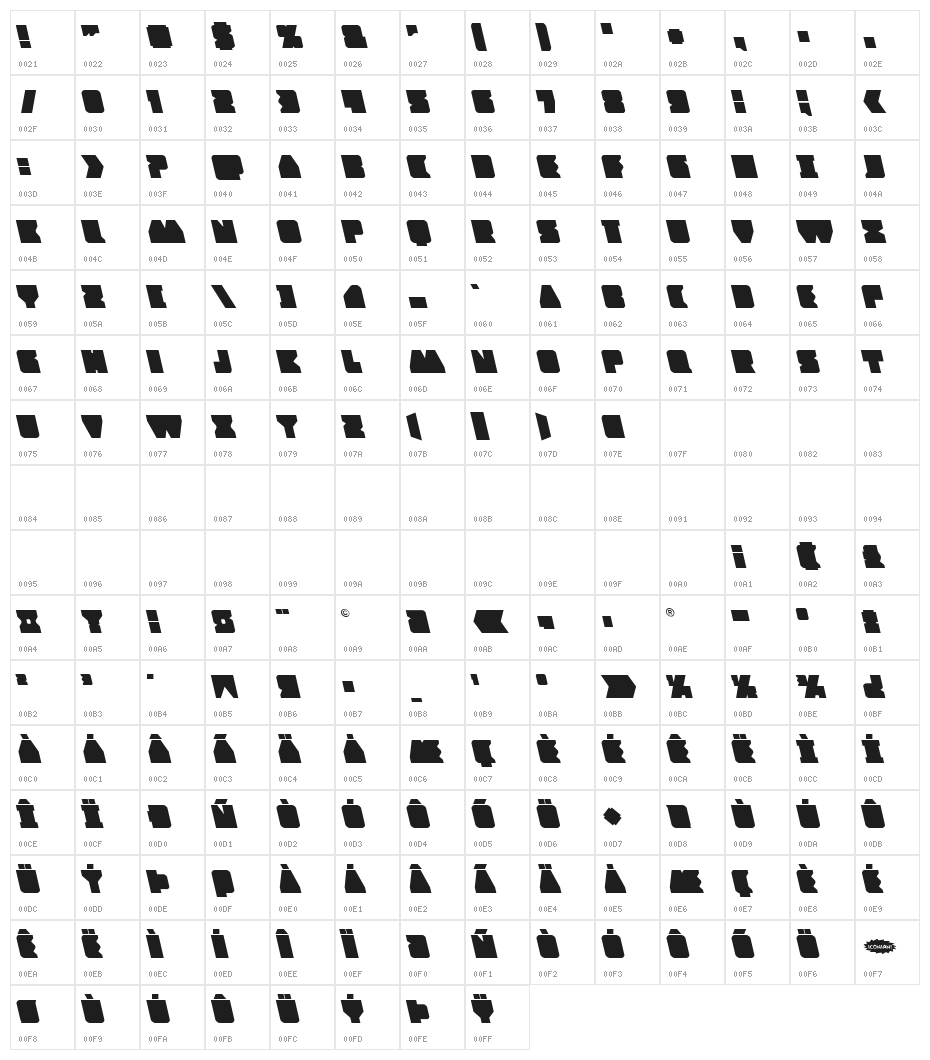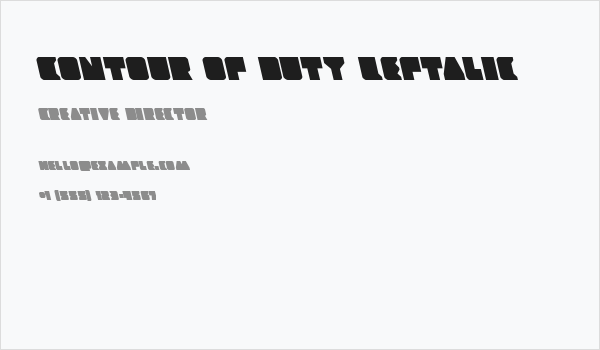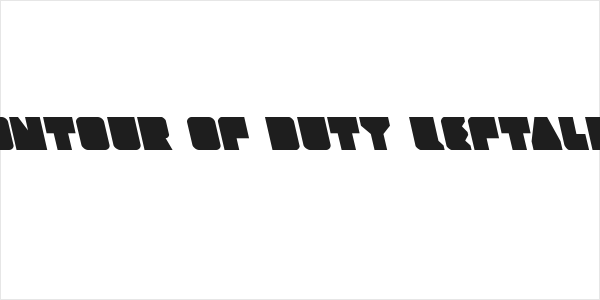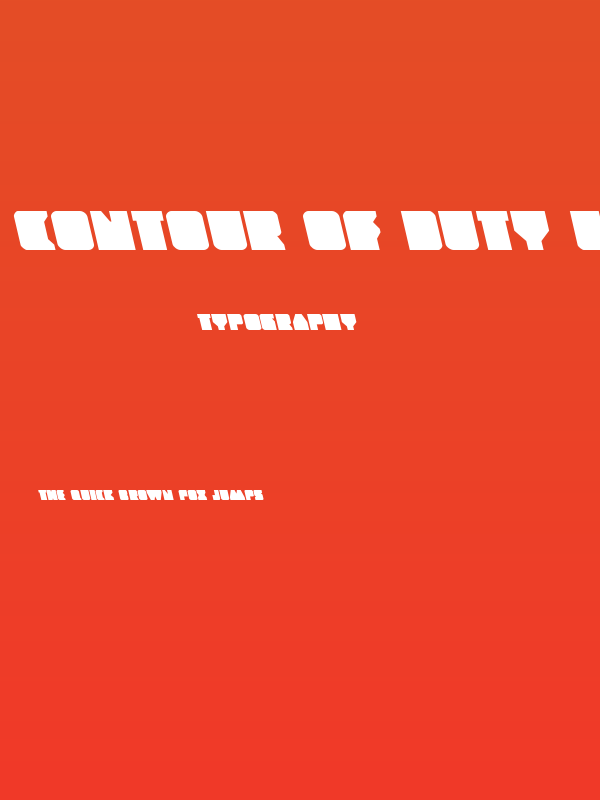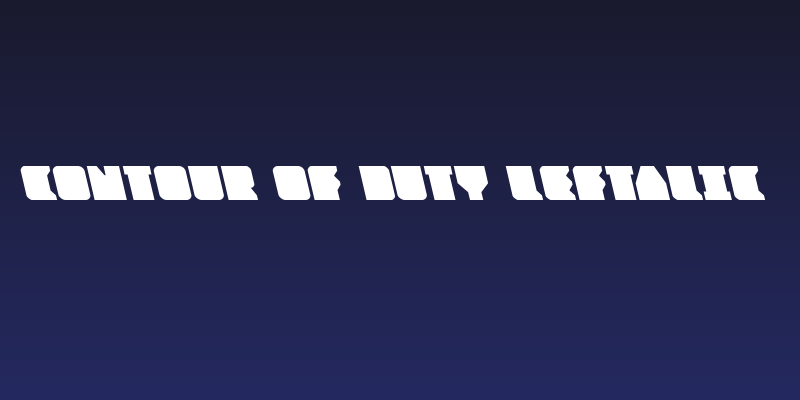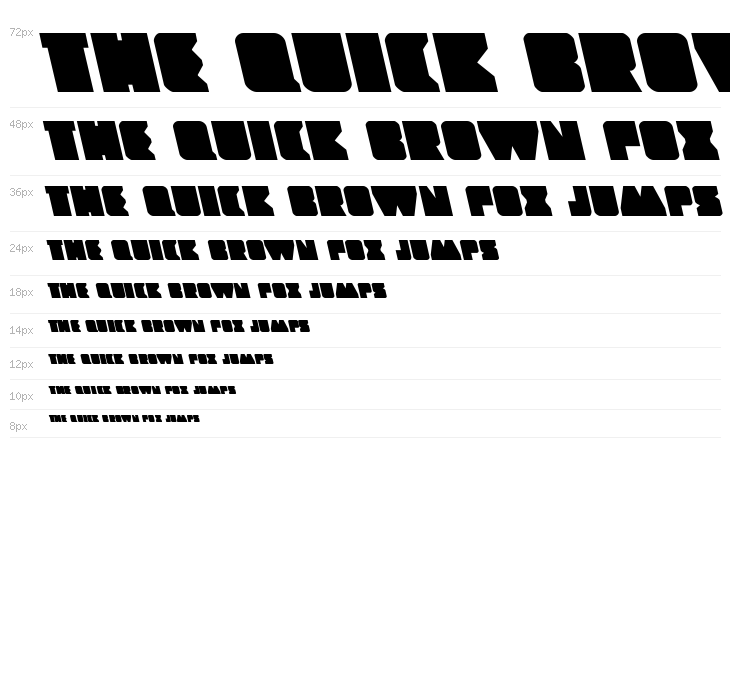
Contour of Duty Leftalic Font
Contour of Duty Leftalic Description
This font features a bold, geometric design with a distinct three-dimensional effect, giving each character a sense of depth and movement. The angular, block-like shapes are reminiscent of industrial or futuristic styles, making it stand out with its unique contour. The uppercase and lowercase letters maintain a consistent style, with sharp edges and a uniform thickness that adds to its bold appearance. The numbers and special characters follow the same design principles, ensuring a cohesive look across all elements. This font's strong visual impact makes it ideal for attention-grabbing designs.
| Overall Style | Futuristic, Industrial |
| Proposed Projects | Ideal for video game titles, movie posters, branding for tech companies, or any project requiring a futuristic and bold aesthetic. |